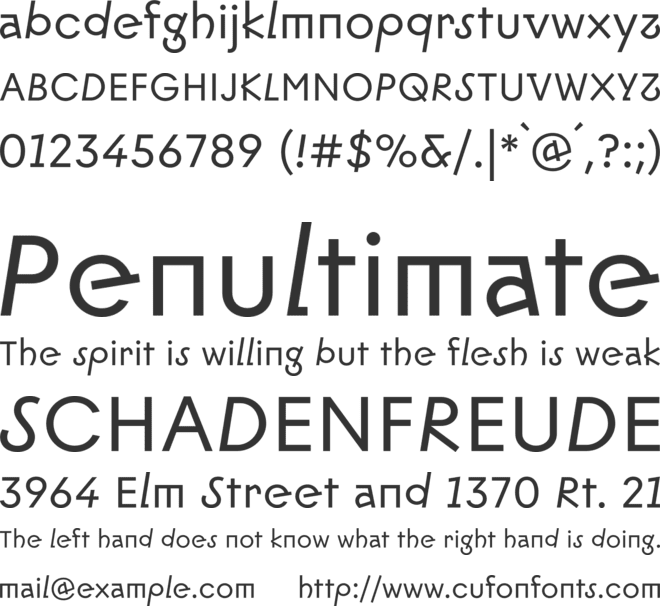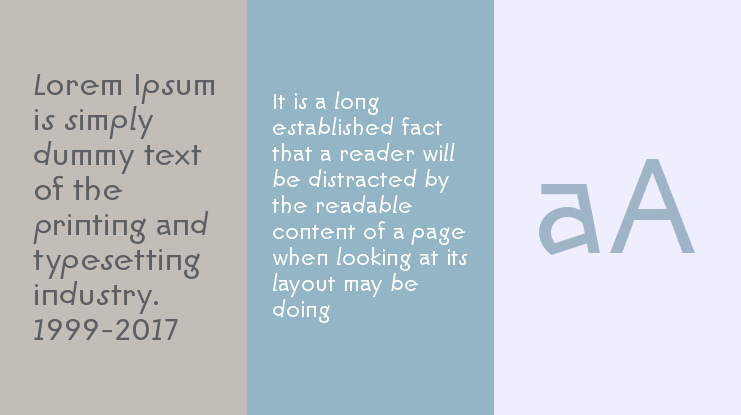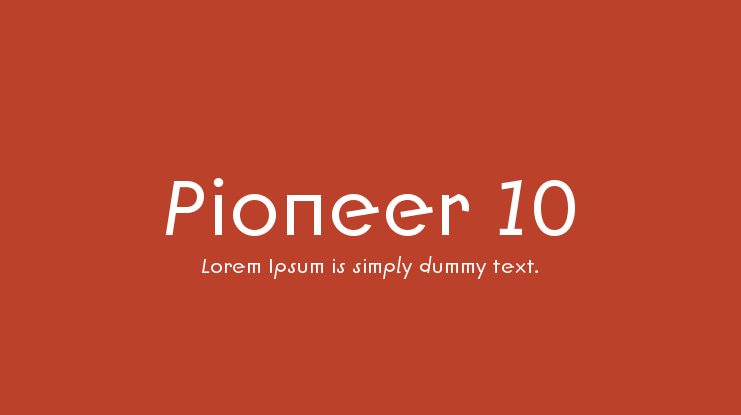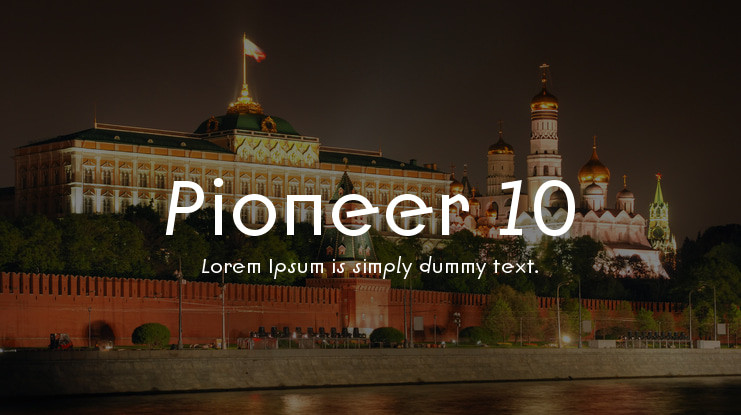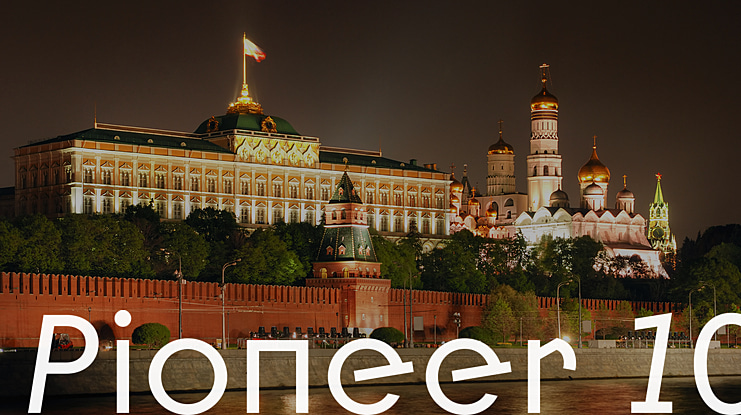
Pioneer 10 Font
Pioneer 10 - this is an experimental grotesque that combines the geometric functions of a direct and oblique font. Supports Cyrillic and extended Latin.